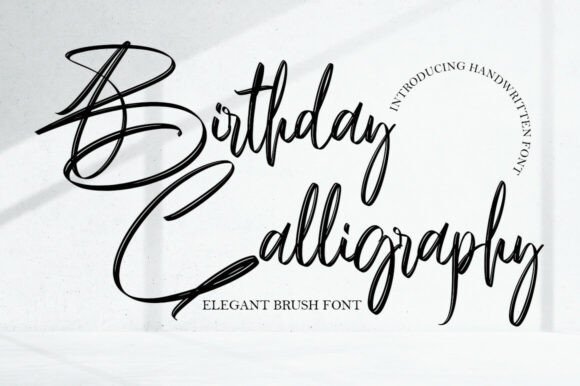
Discover the Timeless Elegance of Birthday Calligraphy Font
There’s something magical about creating a special design that captures the essence of a milestone event. Whether it’s a wedding invitation, a birthday announcement, or a graduation certificate, the right font can make all the difference. As designers, we know the importance of selecting a font that not only conveys the message but also sets the tone for the occasion.
Enter Birthday Calligraphy Font, a stunning calligraphy brush font that embodies classic style and elegance. This versatile font is designed to work harmoniously across various design projects, from weddings and book covers to greeting cards, logos, and business cards. Its rich OpenType features make it a valuable asset for designers looking to add a touch of sophistication to their work.
With its ease of use and endless creative possibilities, Birthday Calligraphy Font is sure to delight designers of all levels. Whether you’re a seasoned pro or just starting out, this font is sure to inspire your creativity and help you create designs that are truly unforgettable.
Birthday Calligraphy Font Key Features
- Font Family: Birthday Calligraphy Font
- Unique Characteristics: Hand-drawn calligraphy style, elegant and cursive, perfect for birthday invitations, greeting cards, and other special occasions.
Designer Review: Birthday Calligraphy Font
At first glance, the Birthday Calligraphy Font ✨ catches the eye with its elegant, cursive style. The font is perfect for adding a touch of whimsy to birthday cards, invitations, or social media posts. The letterforms are well-designed, with a good balance of swashes and flourishes that add to the overall charm.
The font is highly customizable, allowing users to adjust the size, color, and line spacing to suit their design needs. The font also includes a range of punctuation marks and symbols, making it easy to create visually appealing compositions.
- ✨ Elegant, cursive design perfect for birthdays and celebrations
- ✨ Highly customizable with adjustable size, color, and line spacing
- ✨ Includes a range of punctuation marks and symbols
- ⚠️ Limited to uppercase and lowercase letters, with no support for numbers or special characters
- ⚠️ Some letterforms may be difficult to read in certain font sizes or resolutions
- ⚠️ Not ideal for formal or corporate designs, due to its playful and cursive nature
Overall, the Birthday Calligraphy Font is a great choice for designers looking to add a touch of personality to their birthday designs. While it has some limitations, its unique design and high level of customization make it a valuable addition to any designer’s toolkit.
Experiment with different font sizes, colors, and spacing to create unique and eye-catching designs.
Use the Birthday Calligraphy Font for special occasions, such as birthdays, weddings, and anniversaries.
Combine the font with other design elements, such as graphics and images, to create a cohesive look.
The Birthday Calligraphy Font is ideal for creating invitations, party decorations, and social media graphics.
Use it to add a personal touch to your designs and make them stand out from the crowd.
Q: What is the recommended font size for using the Birthday Calligraphy Font?
The recommended font size for the Birthday Calligraphy Font is between 24-48 points, depending on the intended use and desired level of detail. Using font sizes within this range will help preserve the delicate lines and flourishes of the calligraphy style.